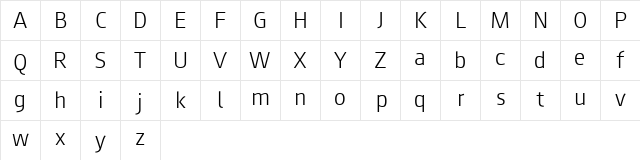
August Sans Red Light is a composed and adaptable typeface that performs quietly and consistently across a wide range of design contexts. Its slender proportions lend an understated elegance to any composition.